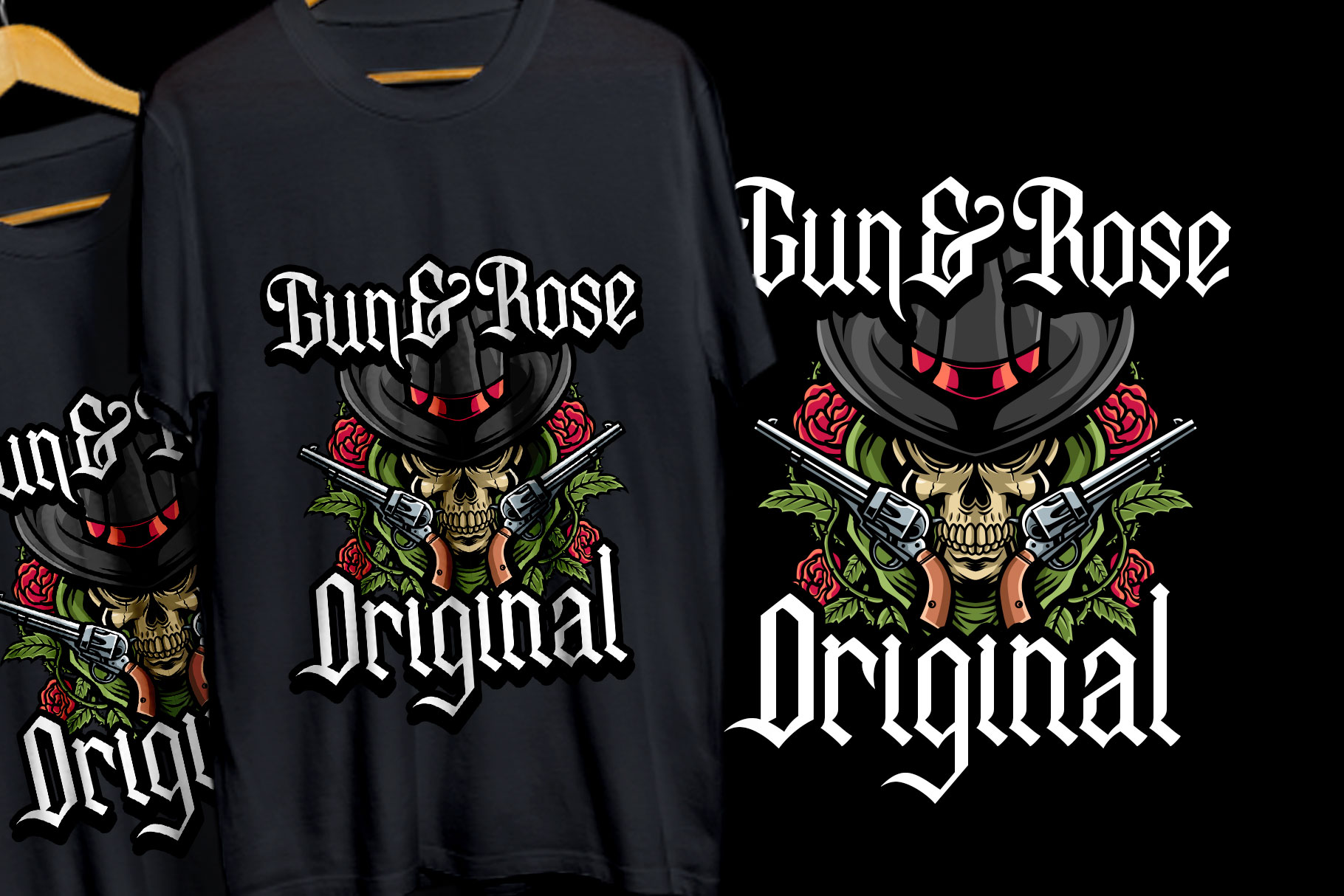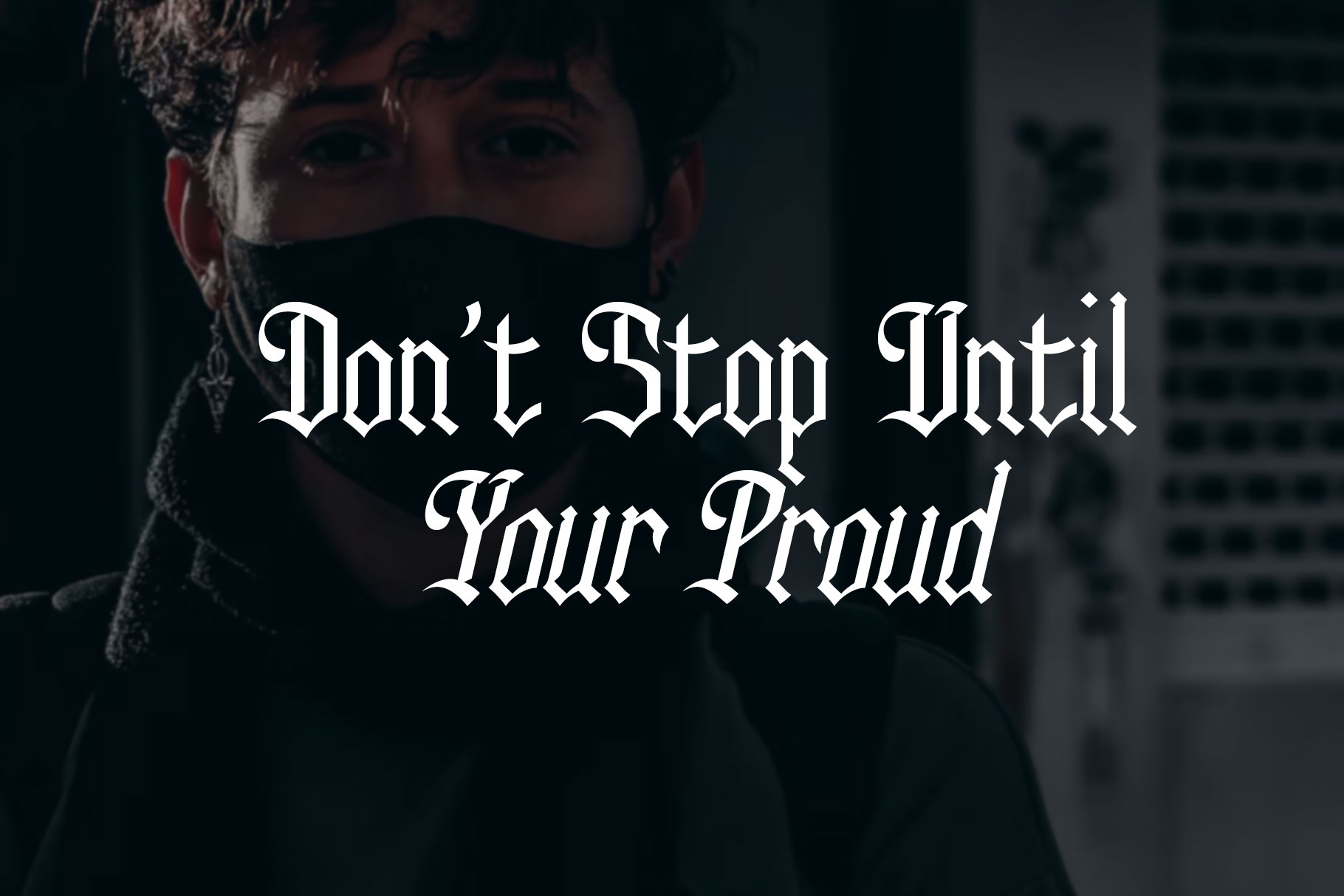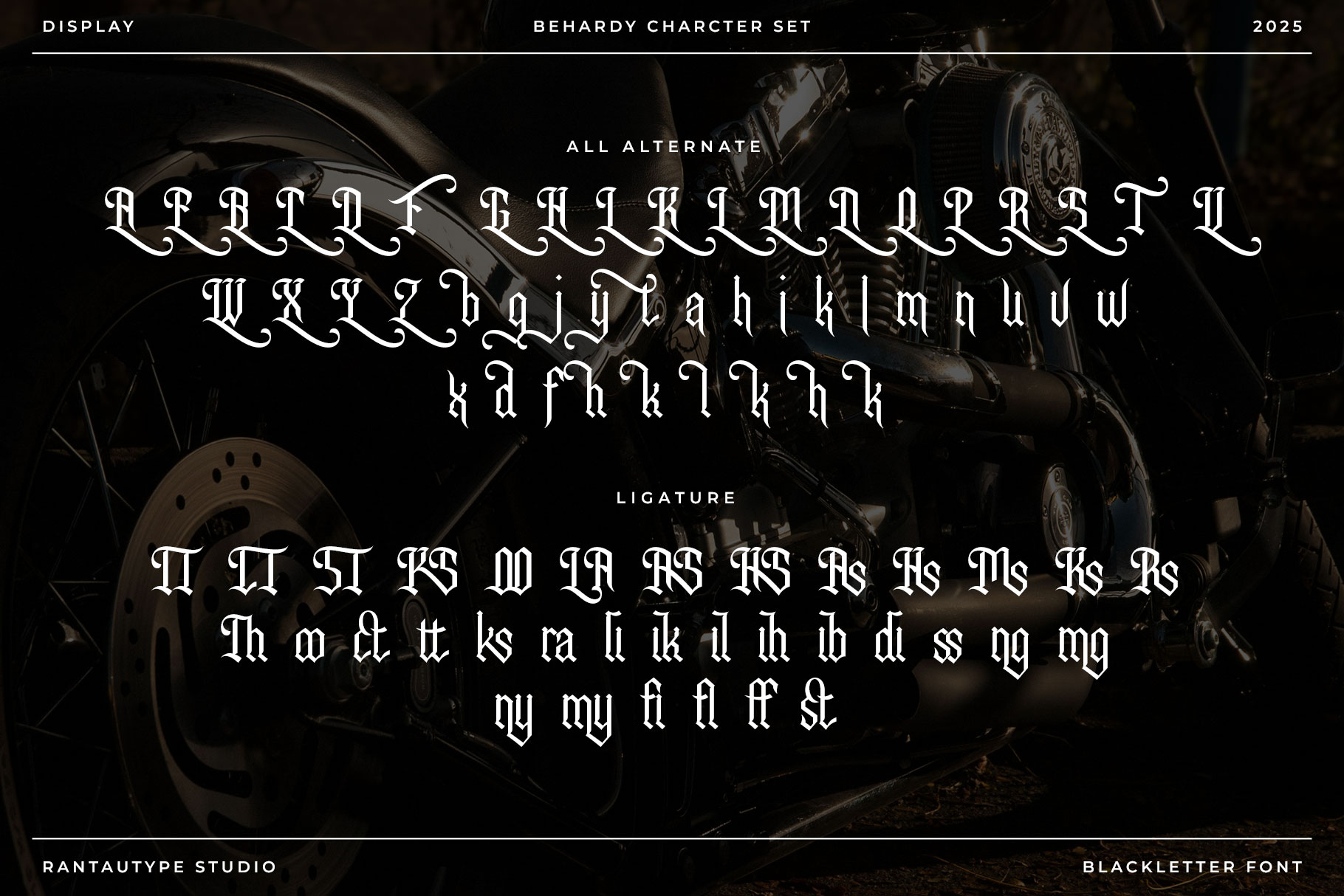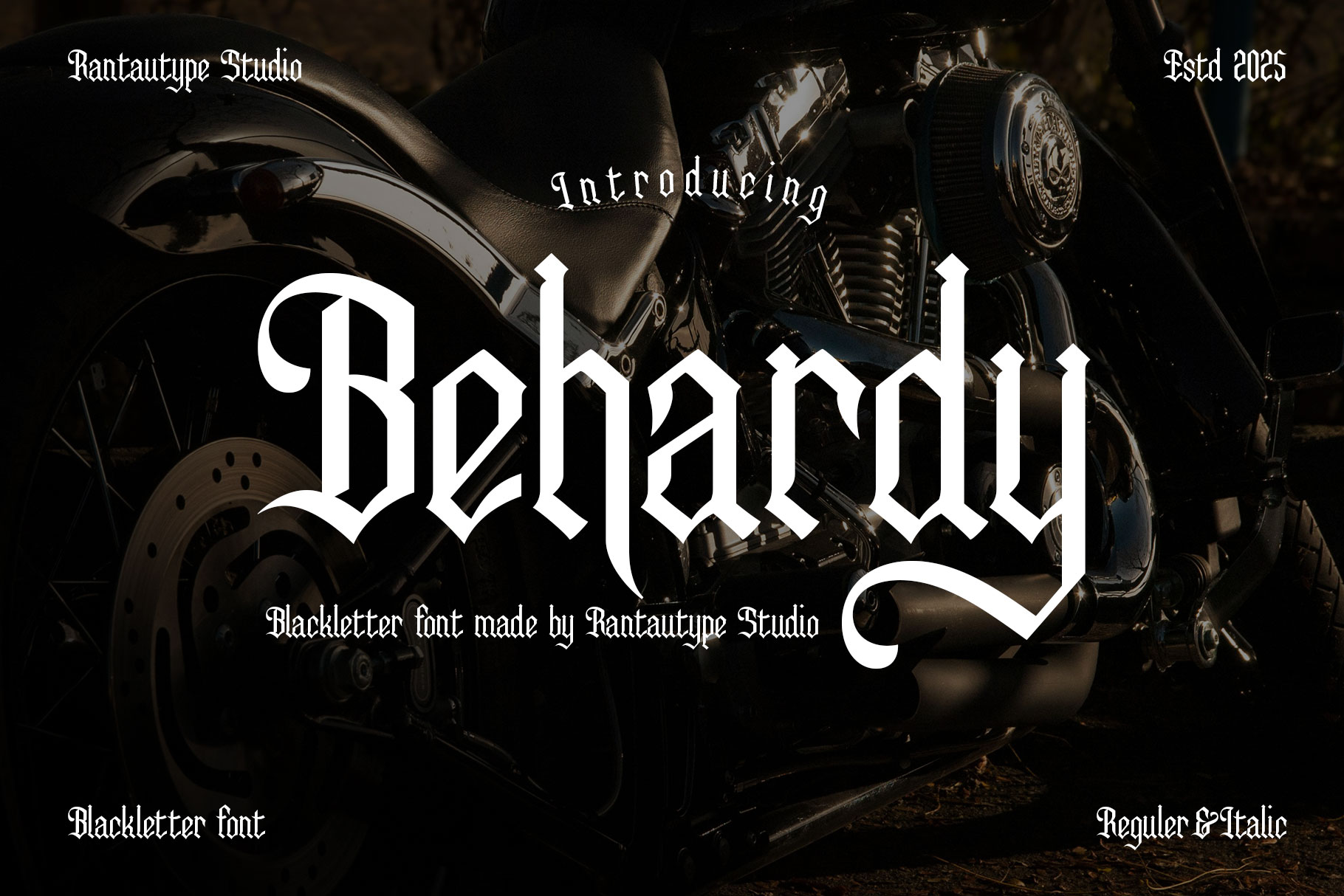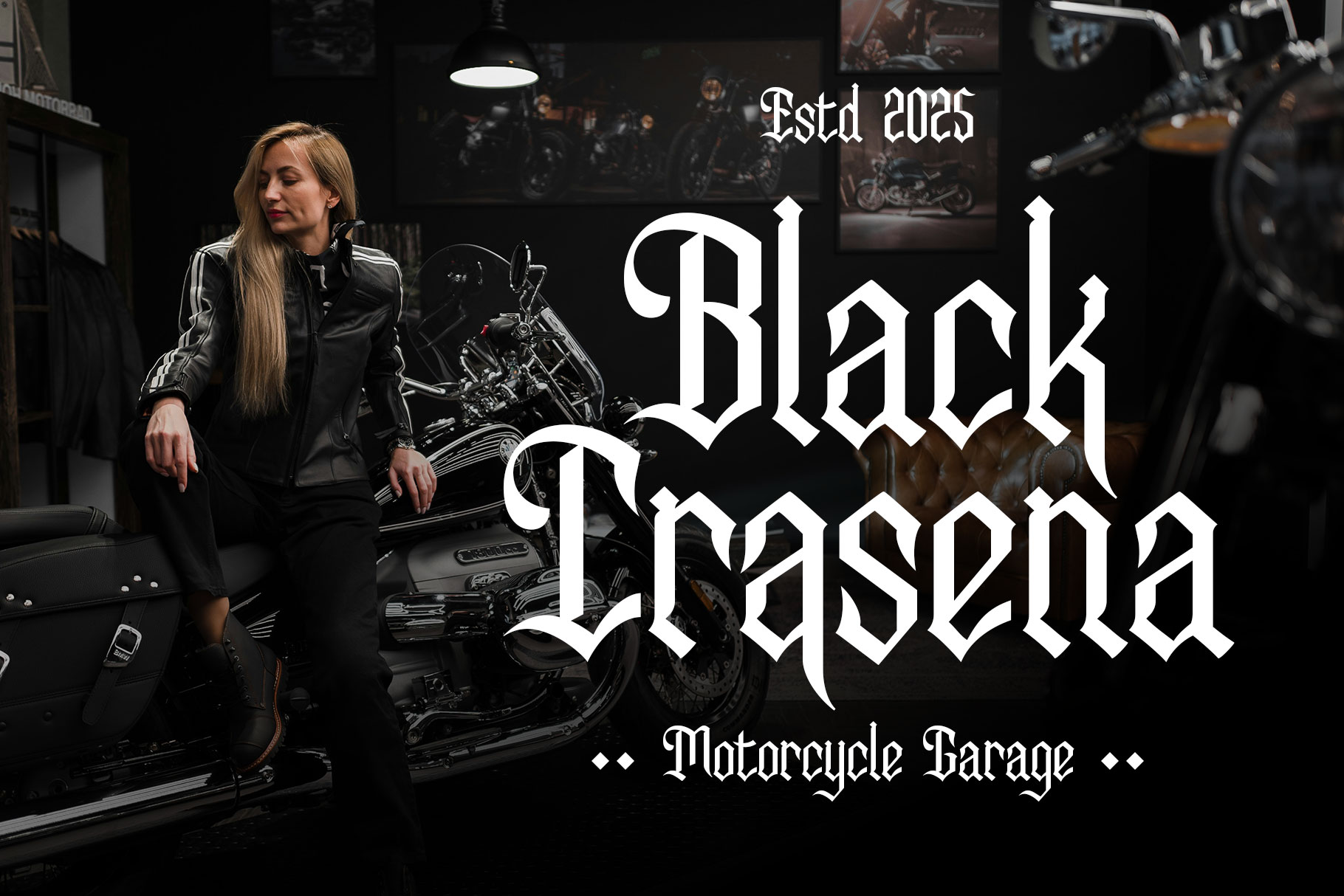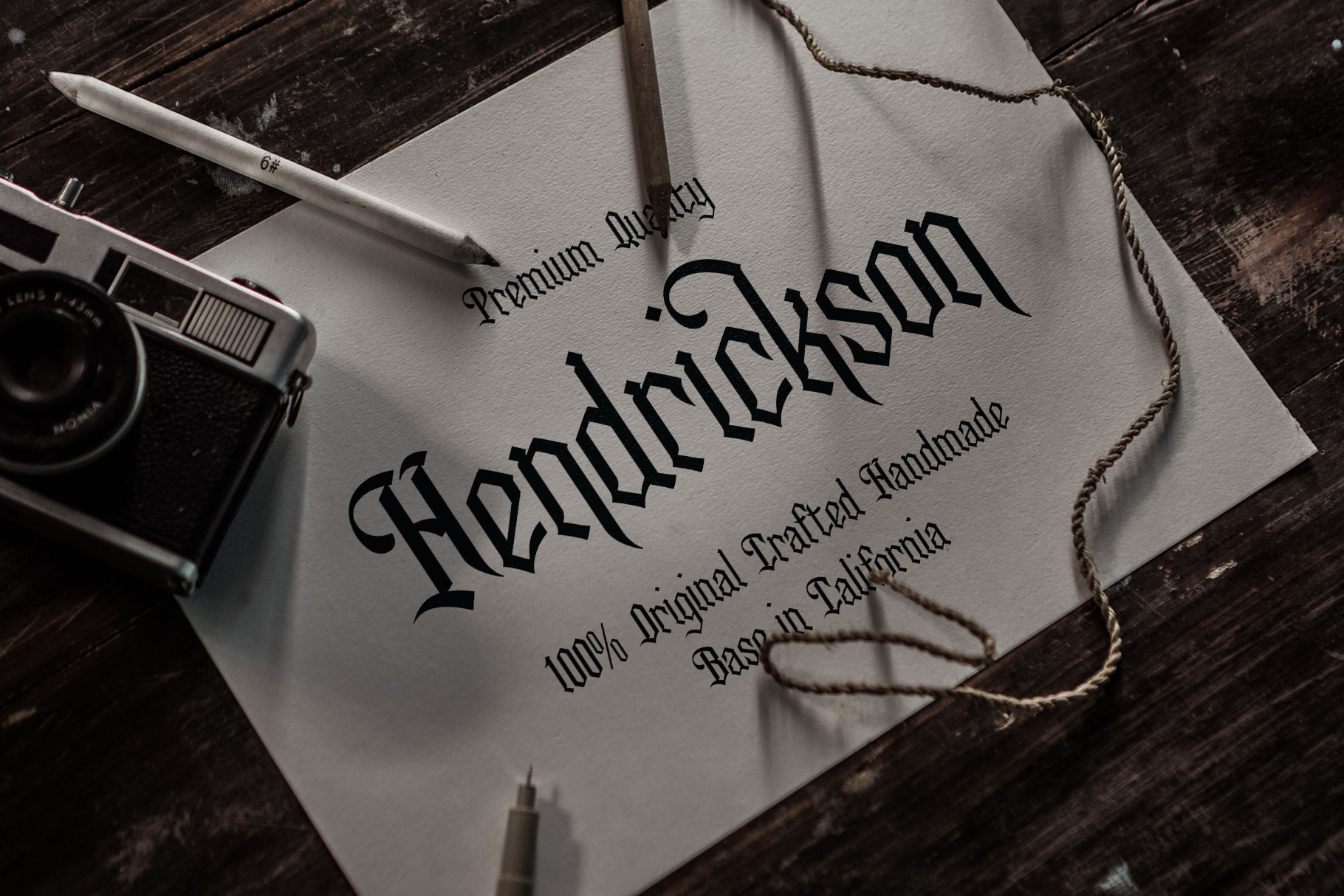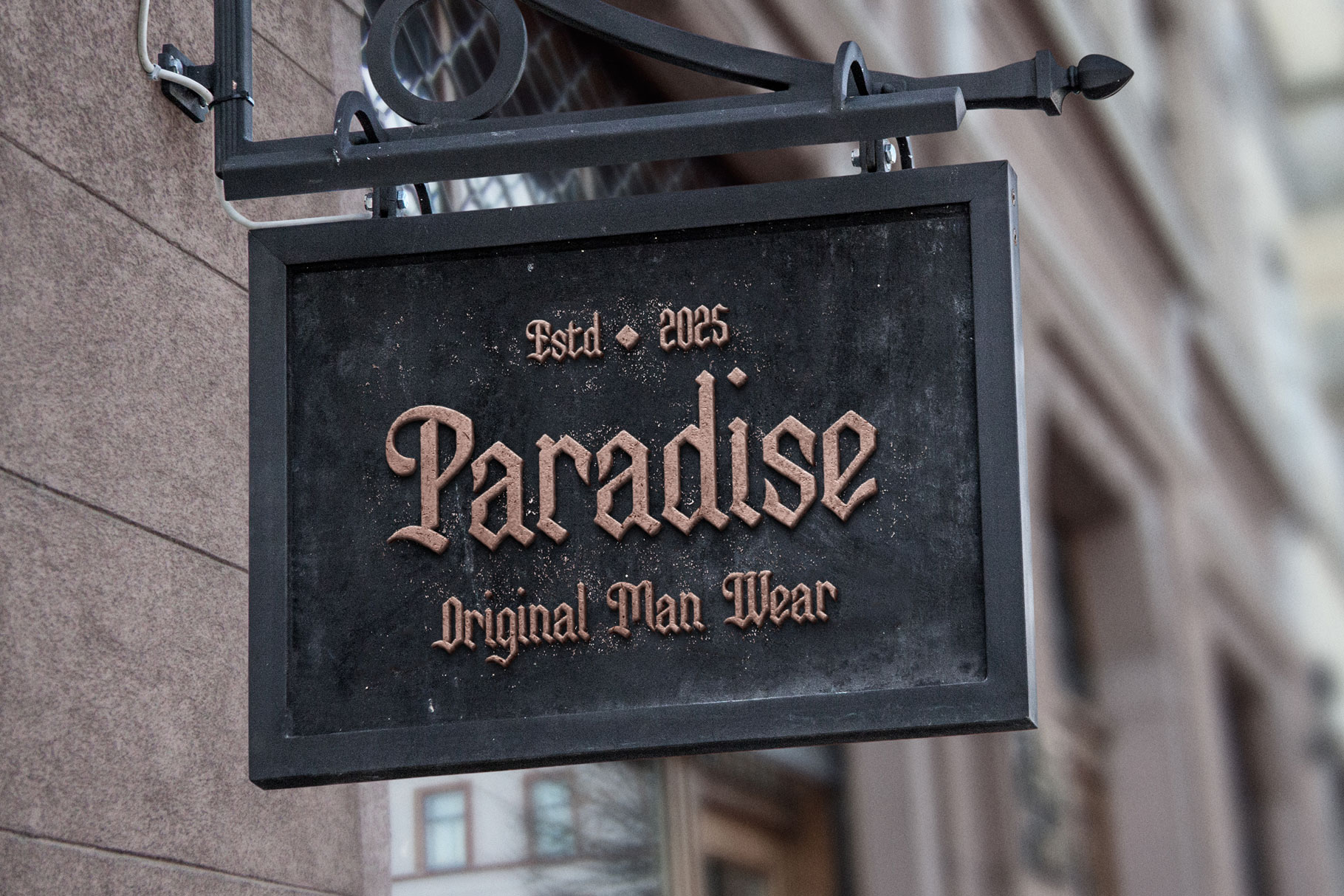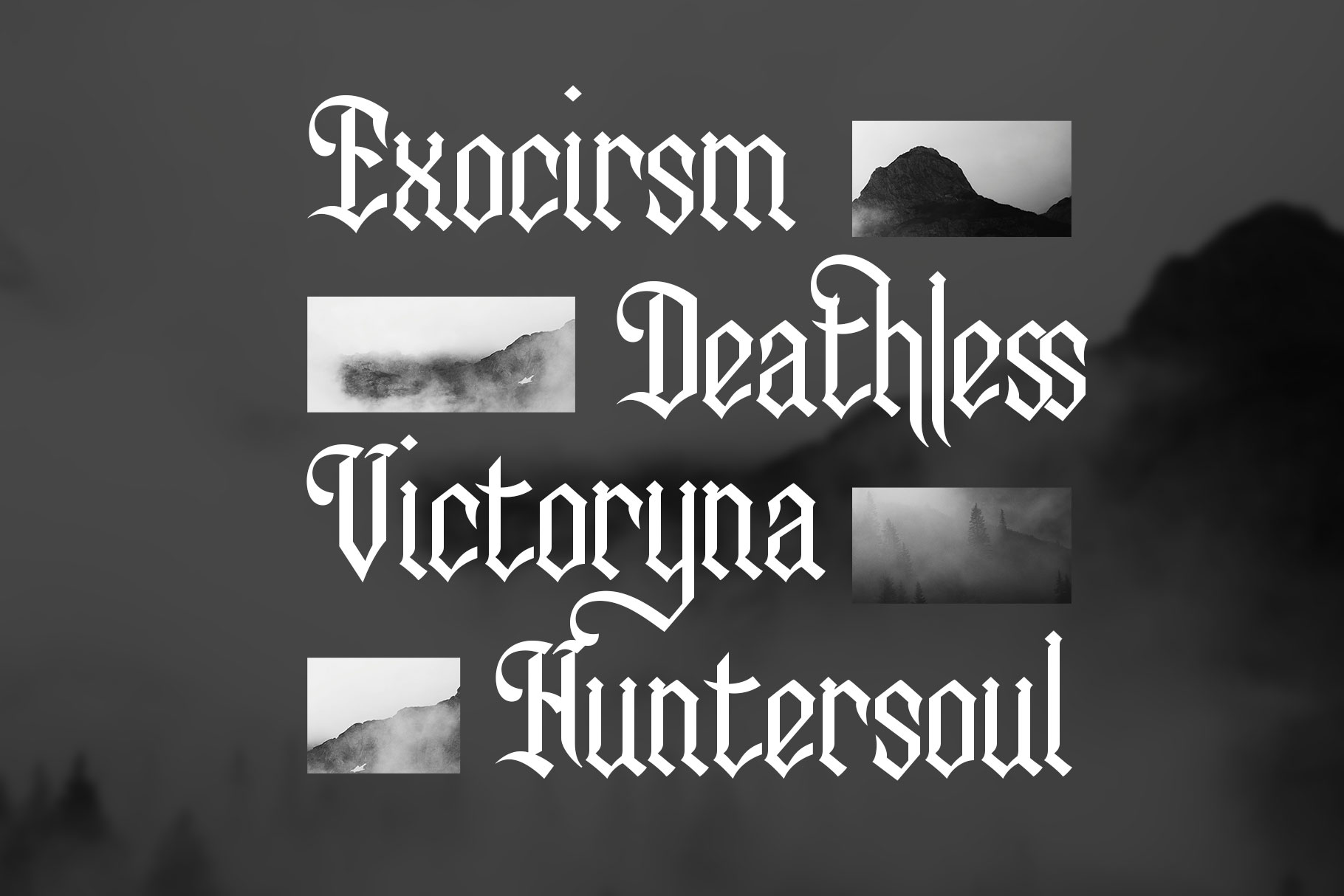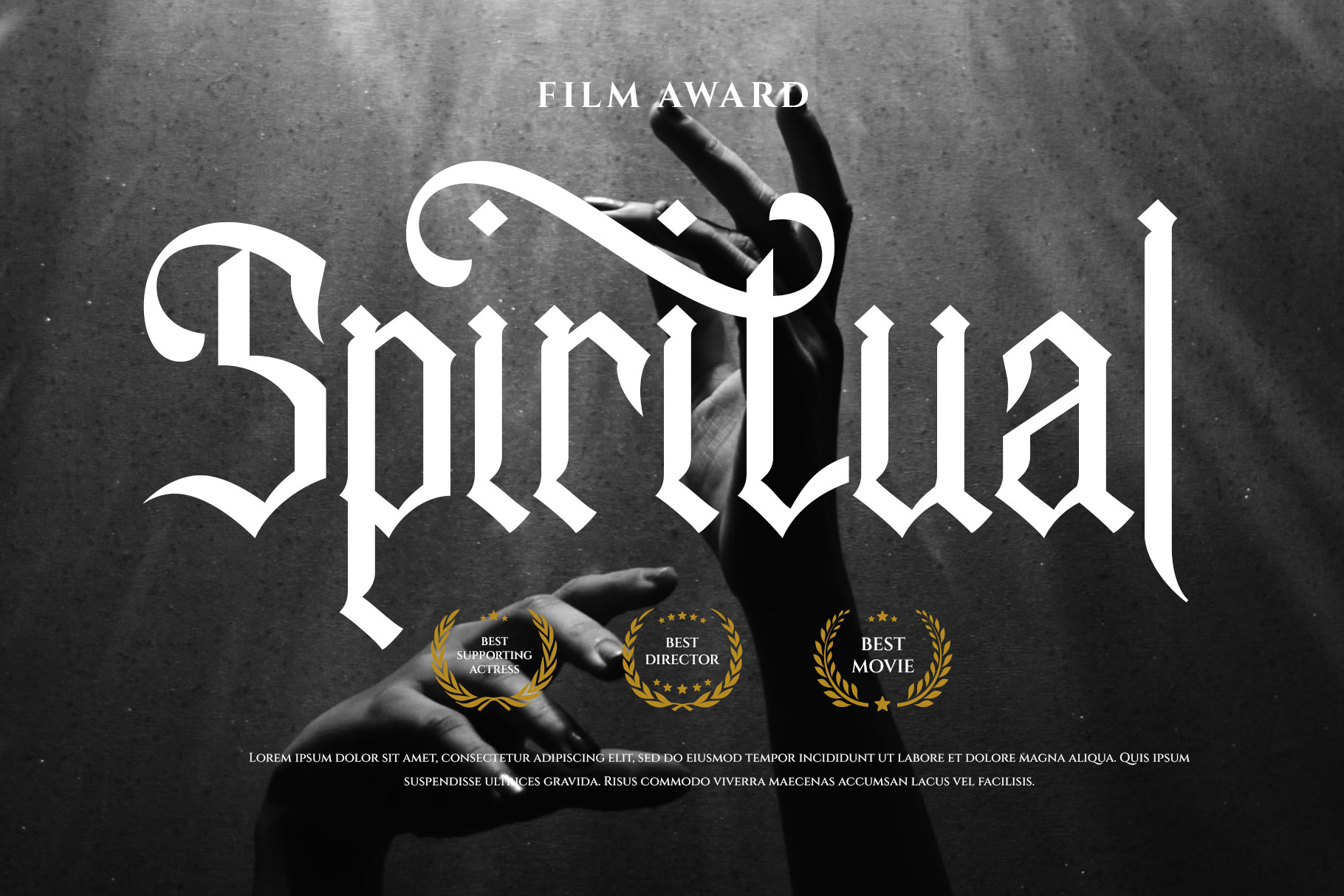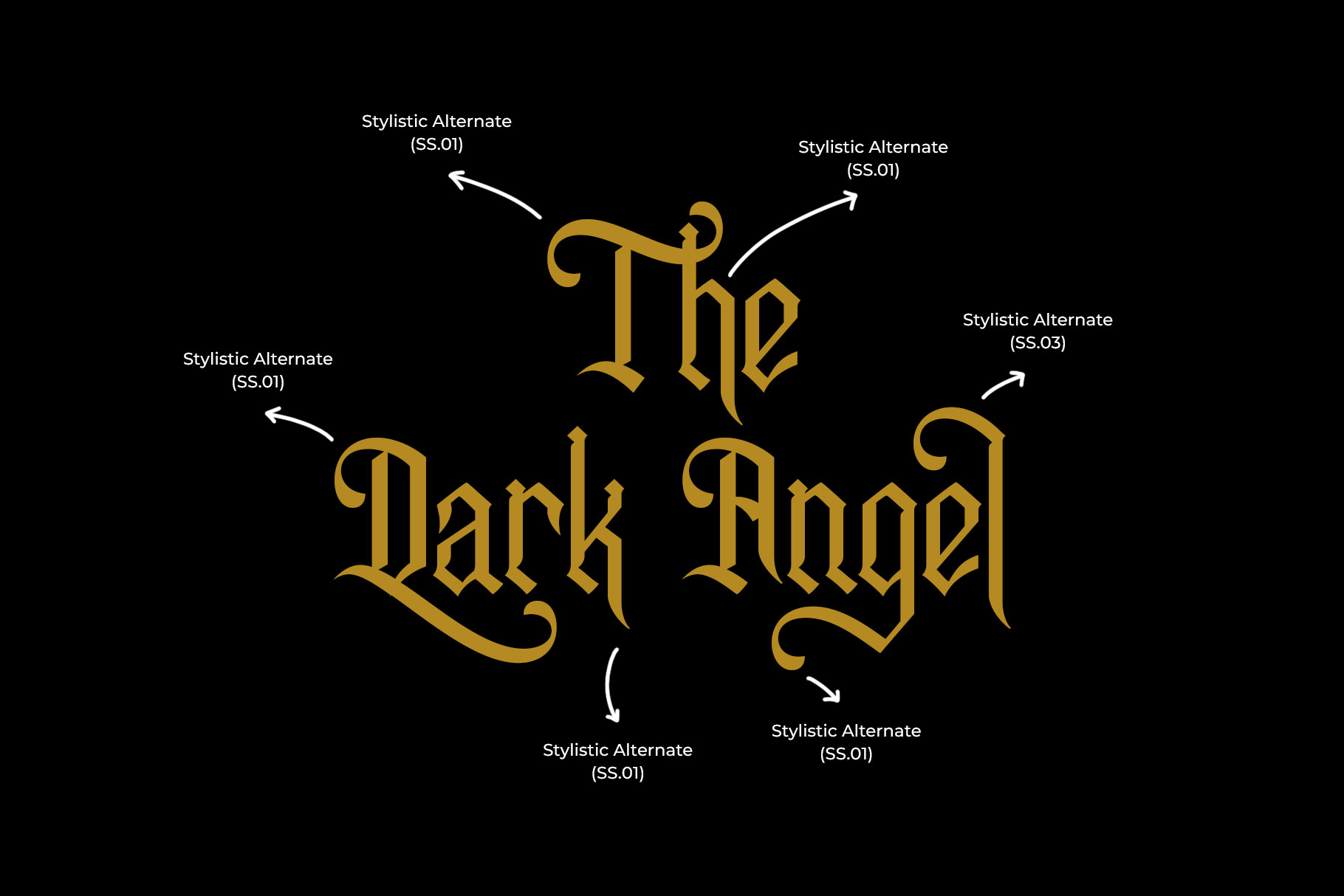
Behardy Blackletter Font
Behardy is Blackletter font with authentic character to make your design awesome. Behardy is a perfectly choice for any creative endeavor, chic, lifestyle design such as logos, advertisements, stationery, branding project, display and magazine, invitation, corporate brand, product design, label, business project and many other project with gentelment touch.